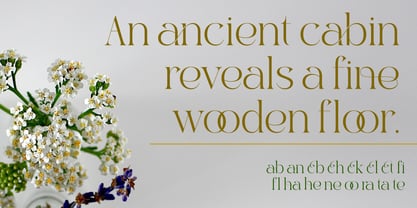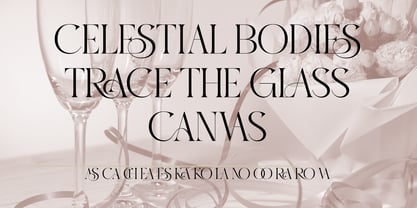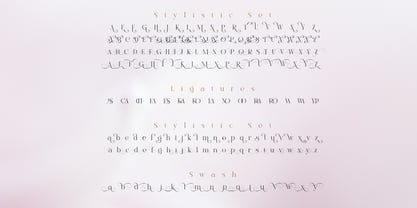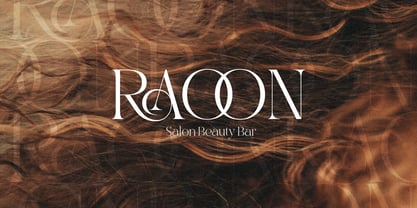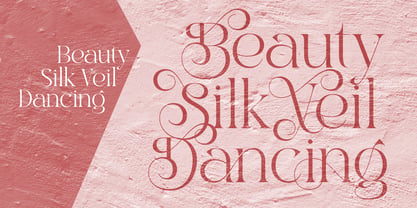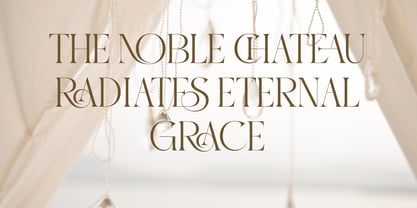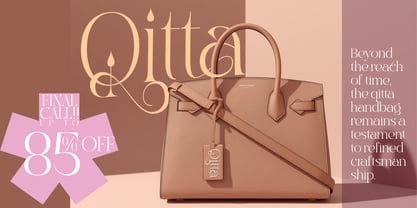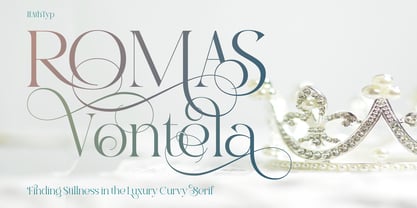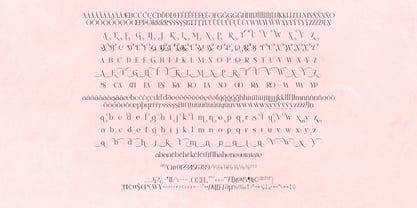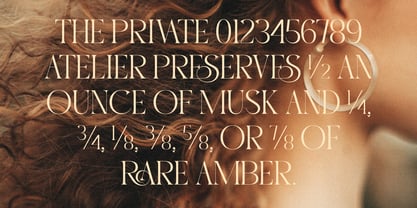
Romas Vontela
by Authentype
The Romas Vontela Font Family was designed by Ekayasa and published by Authentype. Romas Vontela contains 1 styles. More about this family
ROMAS VONTELA – A LUXURY CURVY SERIF FONT FOR ELEGANT BRANDING Elevate your design projects with Romas Vontela, a luxury curvy serif typeface designed for those who refuse to settle for the ordinary. If you have been searching for that elusive touch of class, this luxury font brings a regal atmosphere to every layout. We understand the struggle of finding a typeface that balances readability with artistic flair, which is why Romas Vontela was crafted as a distinctively curvy typeface that guides the eye with graceful, sweeping movements. As a high-end serif font, it features elaborate swashes and stylistic sets that allow you to customize your text, turning standard headlines into bespoke works of art. Perfect for when your client demands: * sophistication and stillness * sophisticated uppercase & lowercase characters * extensive set of stylistic alternates & swashes * standard ligatures for smooth text flow * numbers, punctuation & multilingual support * high-contrast strokes for a royal aesthetic
Designers: Ekayasa Ekayasa
Foundry: Authentype